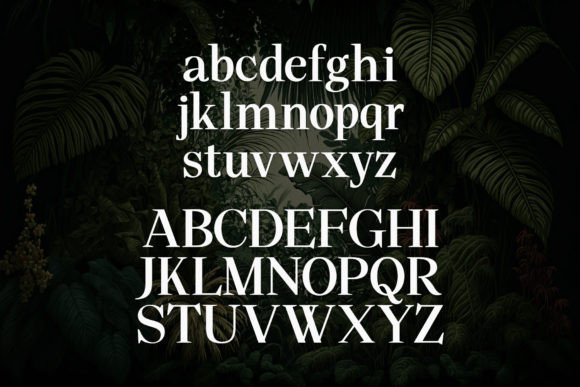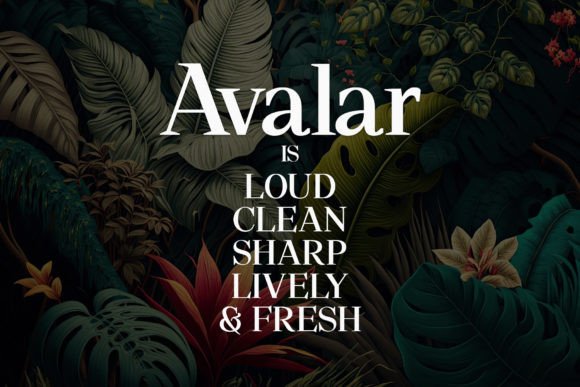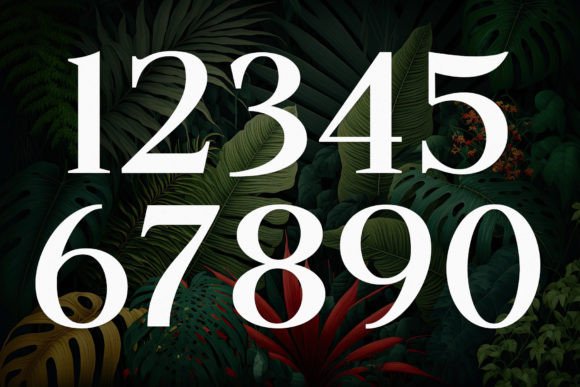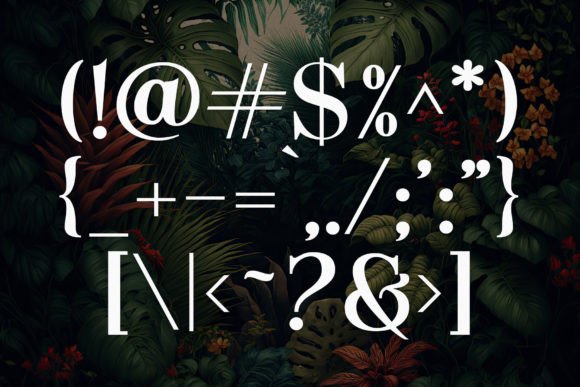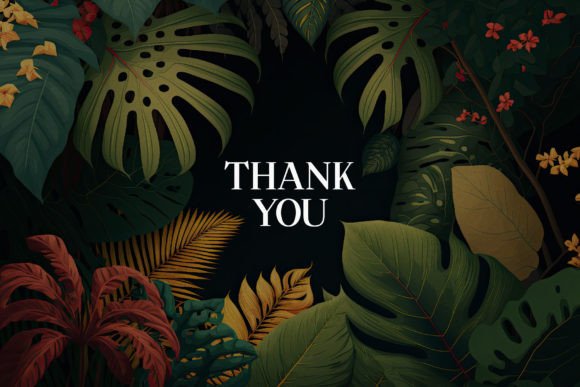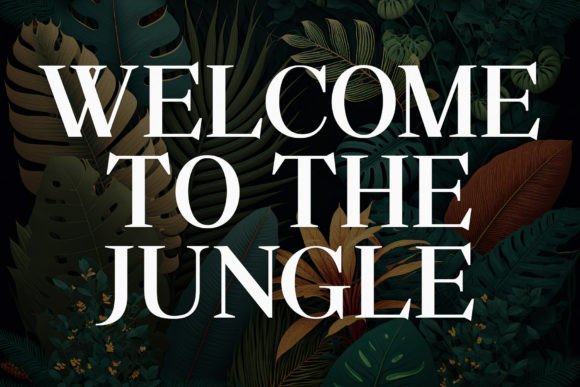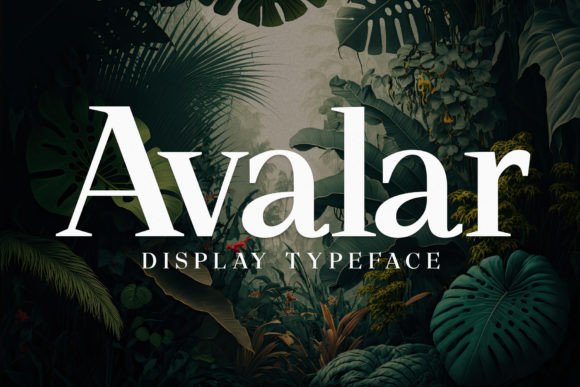
Avalar Font: The Ultimate Choice for Bold and Timeless Designs
In the world of typography, fonts play a crucial role in conveying the tone and personality of a design. For designers and crafters looking to make a statement, Avalar Font is an excellent choice. This attention-grabbing serif display typeface is designed to be extroverted, lively, and bold, making it perfect for a wide range of applications.
The Unique Characteristics of Avalar Font
Avalar Font stands out from other fonts due to its distinctive features. Unlike fonts that try to blend into the background, Avalar is designed to be noticed. Its bold and lively personality makes it an excellent choice for designers who want to create a lasting impression. Whether you’re working on a wedding invitation, magazine, book, packaging design, website, mobile application, or logo, Avalar Font is sure to make your design pop.
One of the key benefits of Avalar Font is its versatility. This refreshing typeface can be used in a wide range of applications, from traditional print designs to digital platforms. Here are some of the ways you can use Avalar Font:
- Wedding Invitations: Create beautiful and elegant wedding invitations that set the tone for the big day.
- Magazines and Books: Use Avalar Font to add a touch of sophistication and elegance to your publications.
- Packaging Designs: Make your product stand out on store shelves with bold and eye-catching packaging designs.
- Websites and Mobile Applications: Use Avalar Font to create a strong online presence and enhance user experience.
- Logos: Create a lasting impression with a bold and memorable logo that showcases your brand’s personality.
A Timeless Design
Avalar Font is not just a trendy typeface; it’s a timeless design that will look beautiful in the past, present, and future. Its classic serif features ensure that it will remain relevant for years to come, making it an excellent investment for designers and crafters. Whether you’re working on a modern design or a vintage-inspired project, Avalar Font is sure to fit right in.
Why Choose Avalar Font?
With so many fonts available, why choose Avalar Font? Here are just a few reasons why designers and crafters love Avalar:
- Unique Personality: Avalar Font has a bold and lively personality that sets it apart from other fonts.
- Versatility: Use Avalar Font in a wide range of applications, from print to digital.
- Timeless Design: Avalar Font is a classic design that will remain relevant for years to come.
- Ease of Use: Avalar Font is easy to read and works well in a variety of contexts.
Avalar Font is an excellent choice for designers and crafters looking to add a touch of elegance and sophistication to their designs. With its bold and lively personality, versatility, and timeless design, Avalar Font is sure to make a lasting impression. Whether you’re working on a wedding invitation, magazine, book, packaging design, website, mobile application, or logo, Avalar Font is the ultimate choice for bold and timeless designs.
Get Ready to Make a Statement with Avalar Font